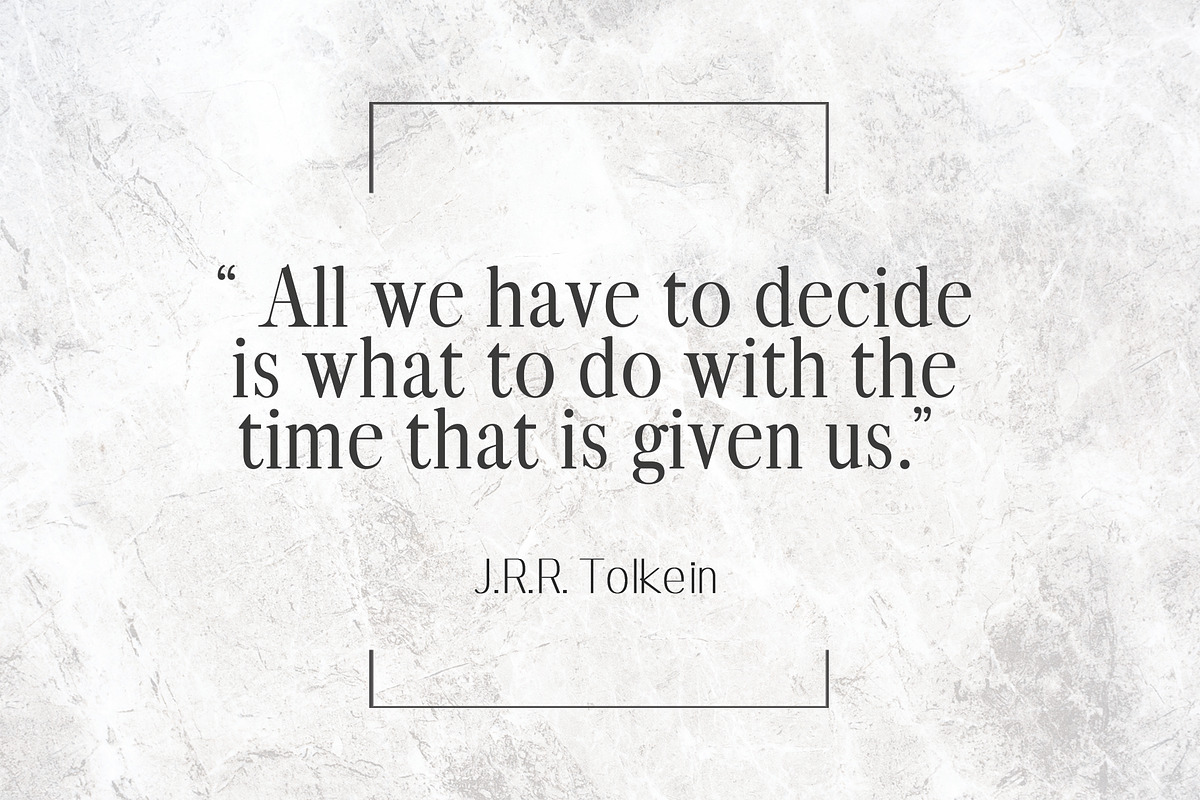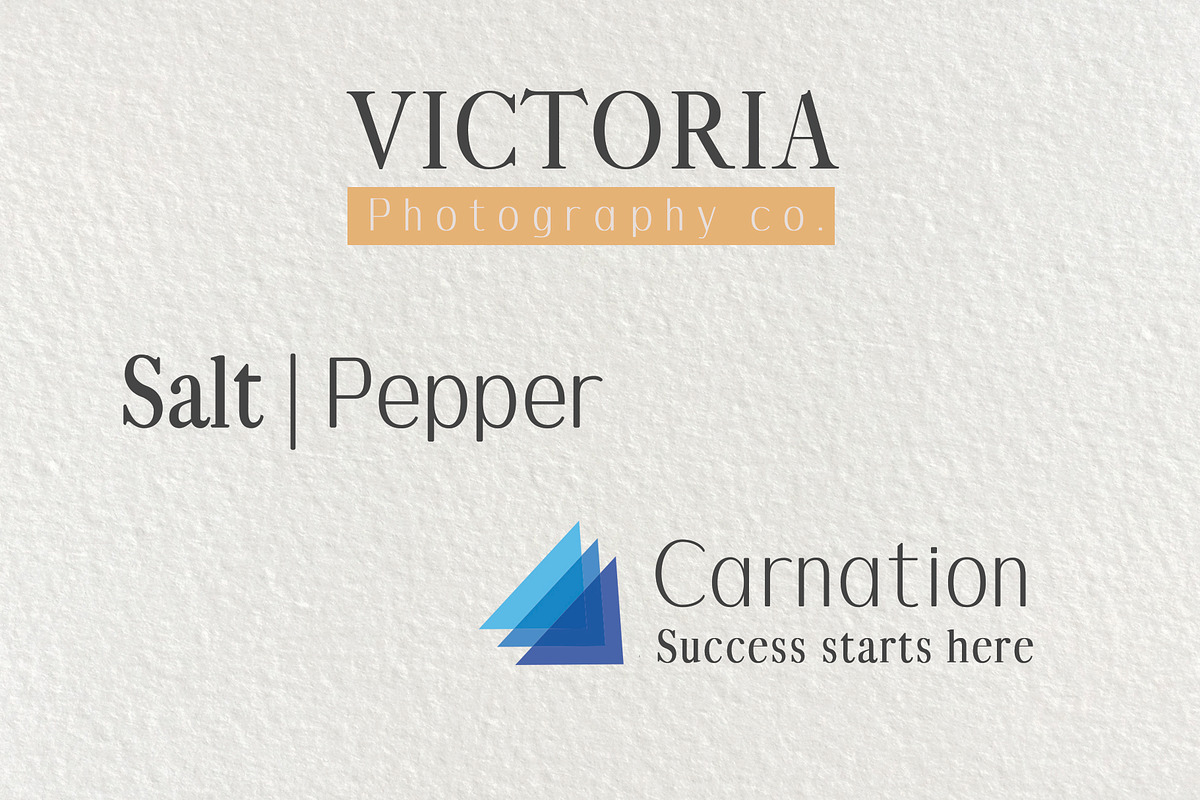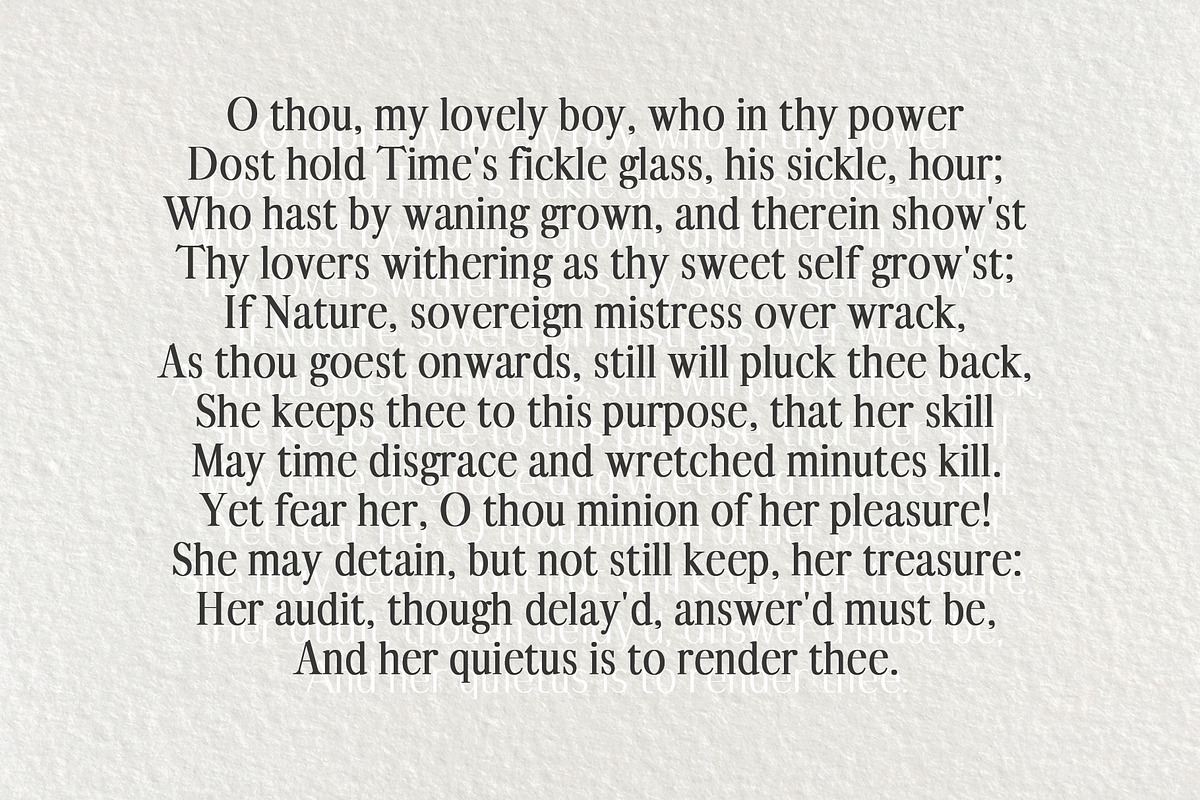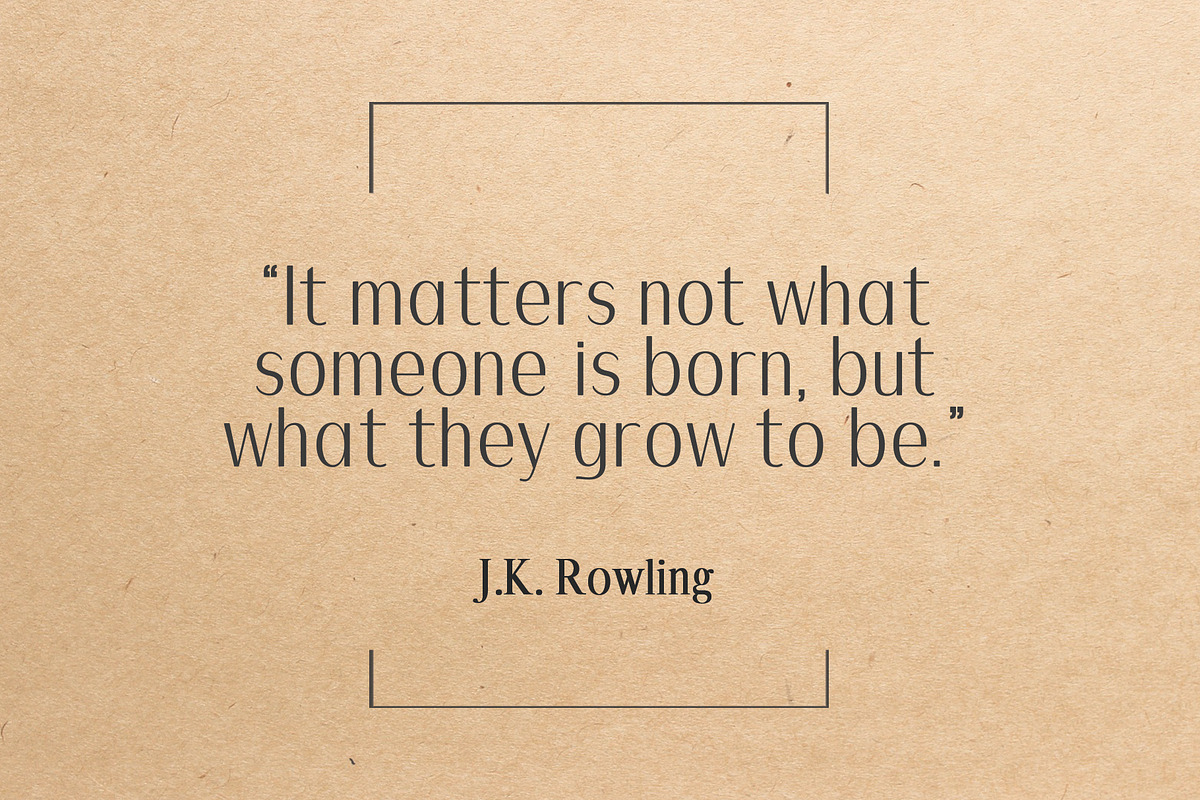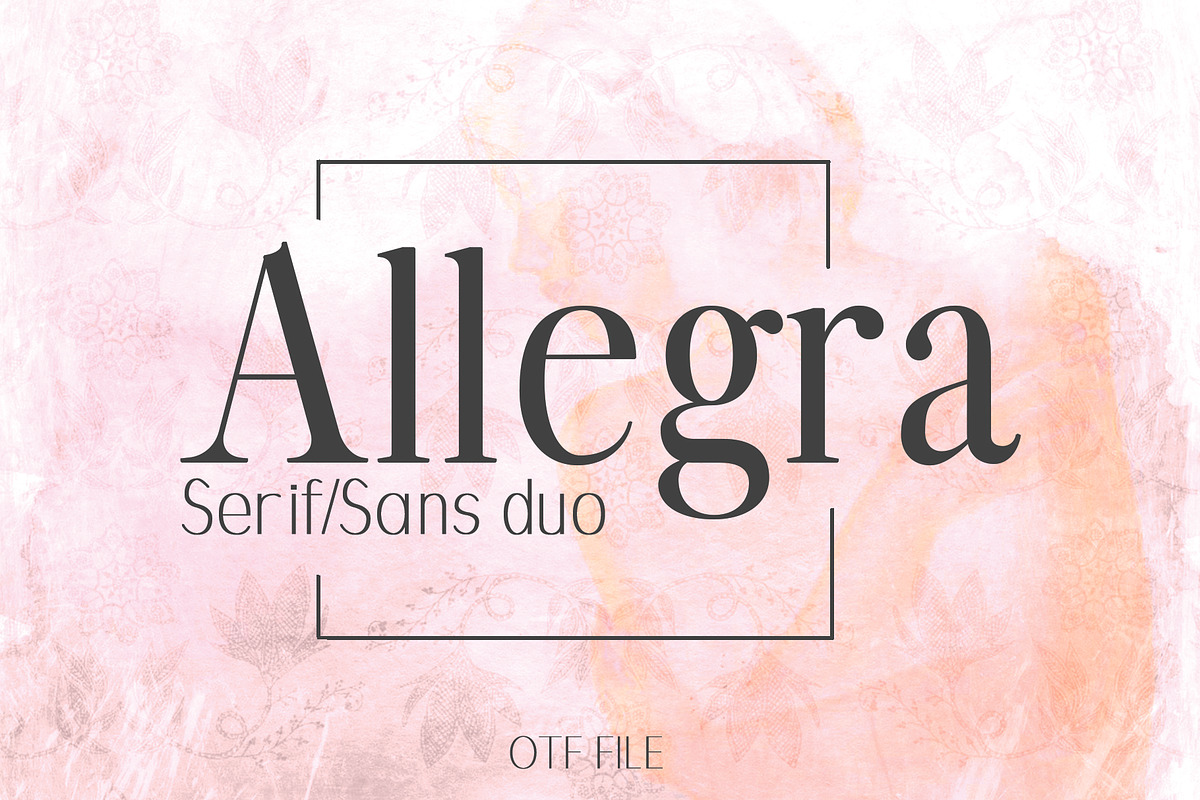
ALLEGRA: A Beautiful Font Duo
An elegant font duo. Allegra is a modern serif and sans serif font that perfectly compliments each other.
- Allegra comes with upper and lowercase, basic characters, numbers, marks, and punctuation.
ALLEGRA: A Beautiful Font Duo by Dene Studios fits naturally into Branding, posters, packaging, typography.